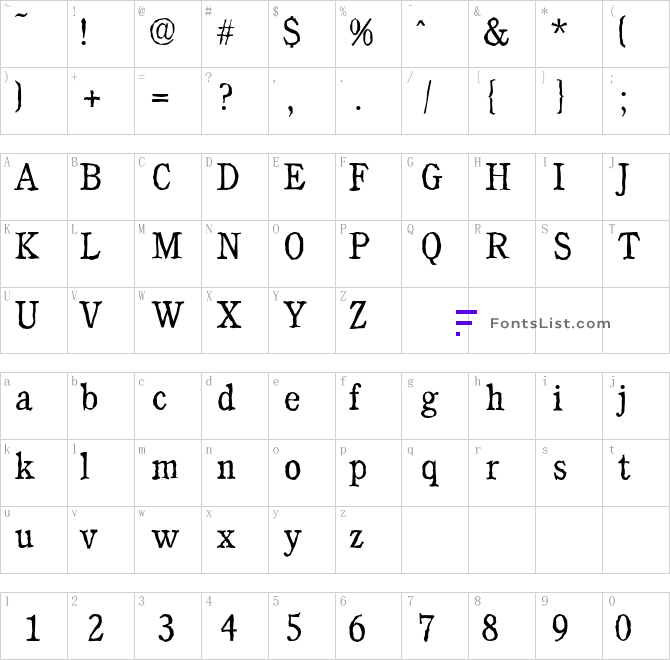
CalgaryAntique-Light-Regular.ttf is a very beautiful artistic font, CalgaryAntique-Light-Regular.ttf is widely used in the design and printing of various books and pictures,CalgaryAntique-Light-Regular.ttf has a strong visual impact,CalgaryAntique-Light-Regular.ttf is a commonly used font in newspapers, magazines and books, and is used in posters, e-commerce Poster design, store design, logo design, font design and other fields.CalgaryAntique-Light-Regular.